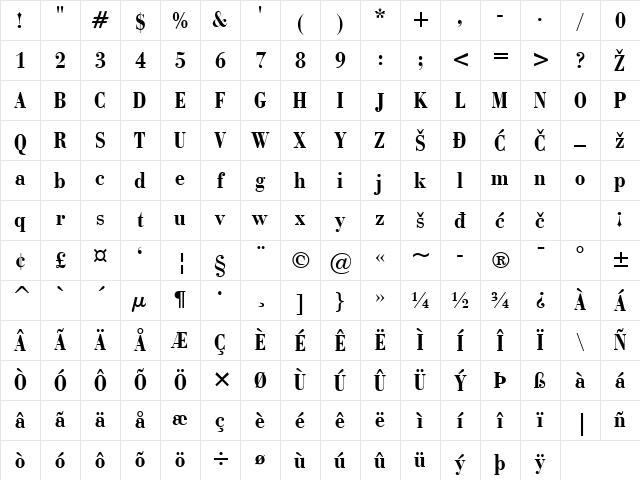
Bauer BodoniCond Bold
Design Context for Bauer BodoniCond
Bauer BodoniCond is a composed and adaptable typeface that performs quietly and consistently across a wide range of design contexts. Its bold stroke weight gives it real presence on the page. Its narrow stance lets it pack a punch even in space-constrained designs.